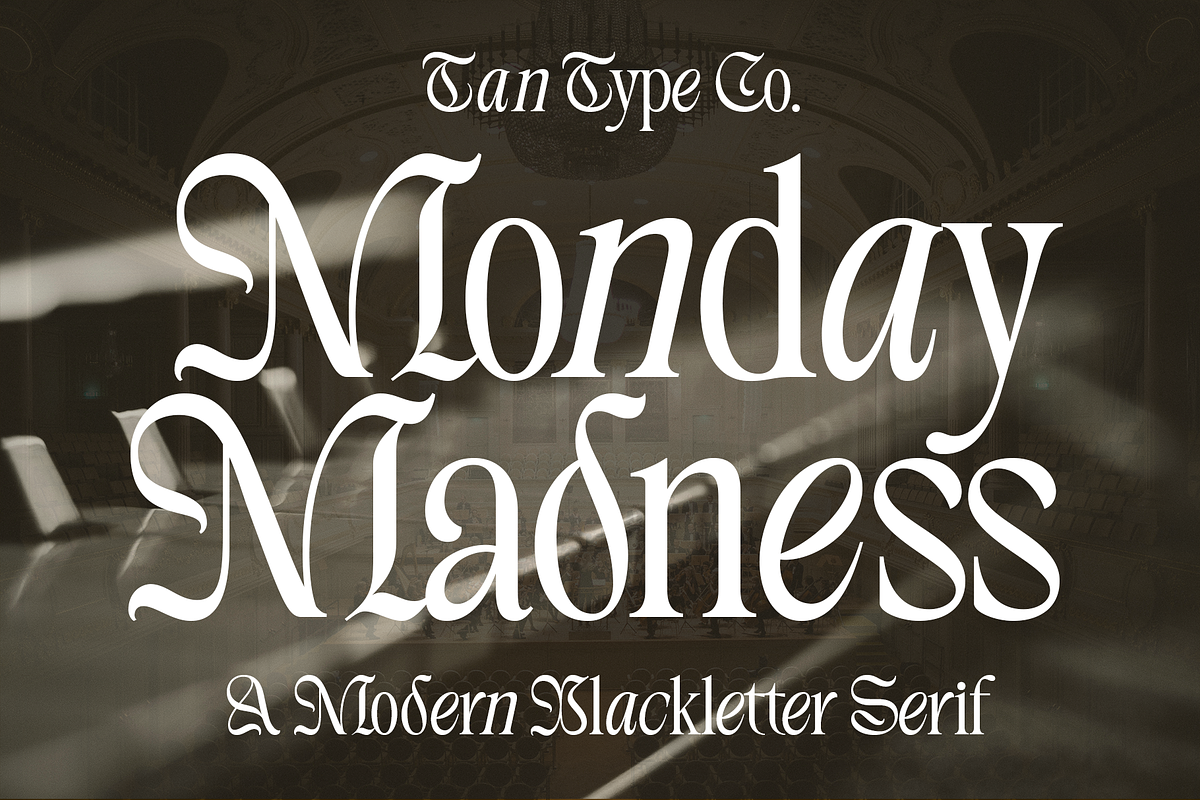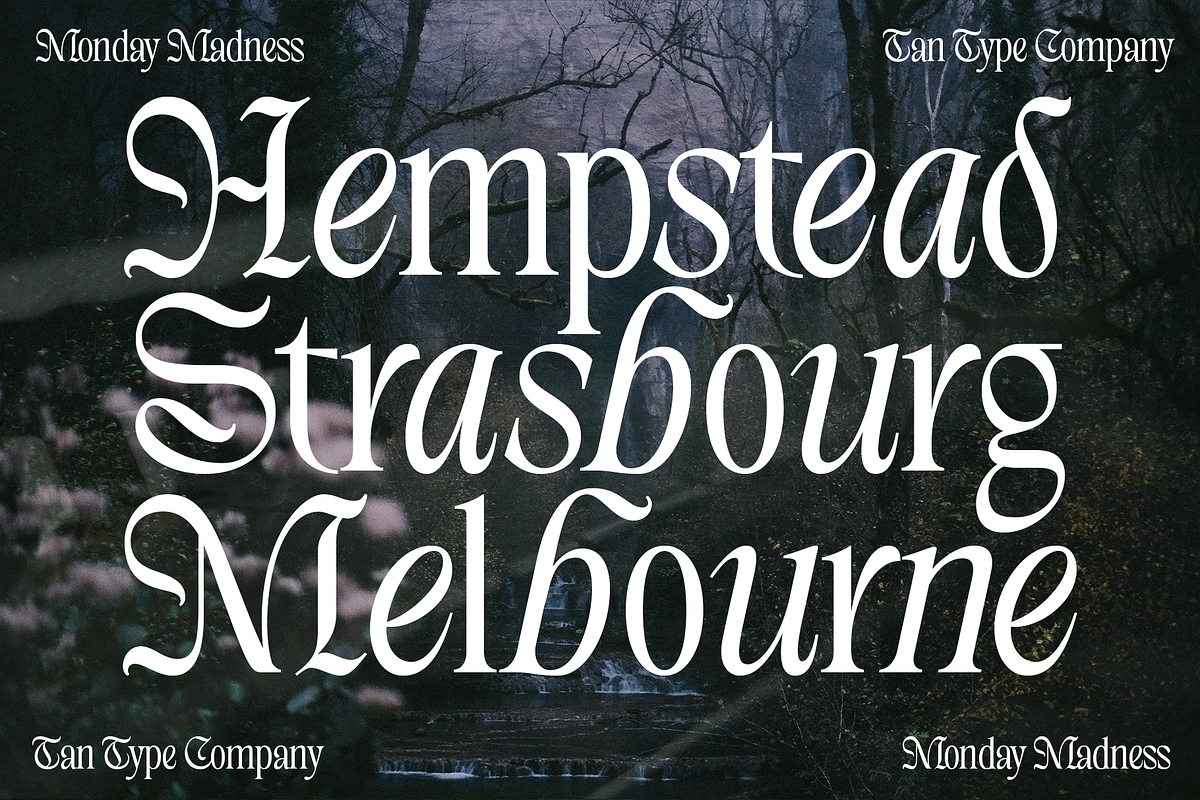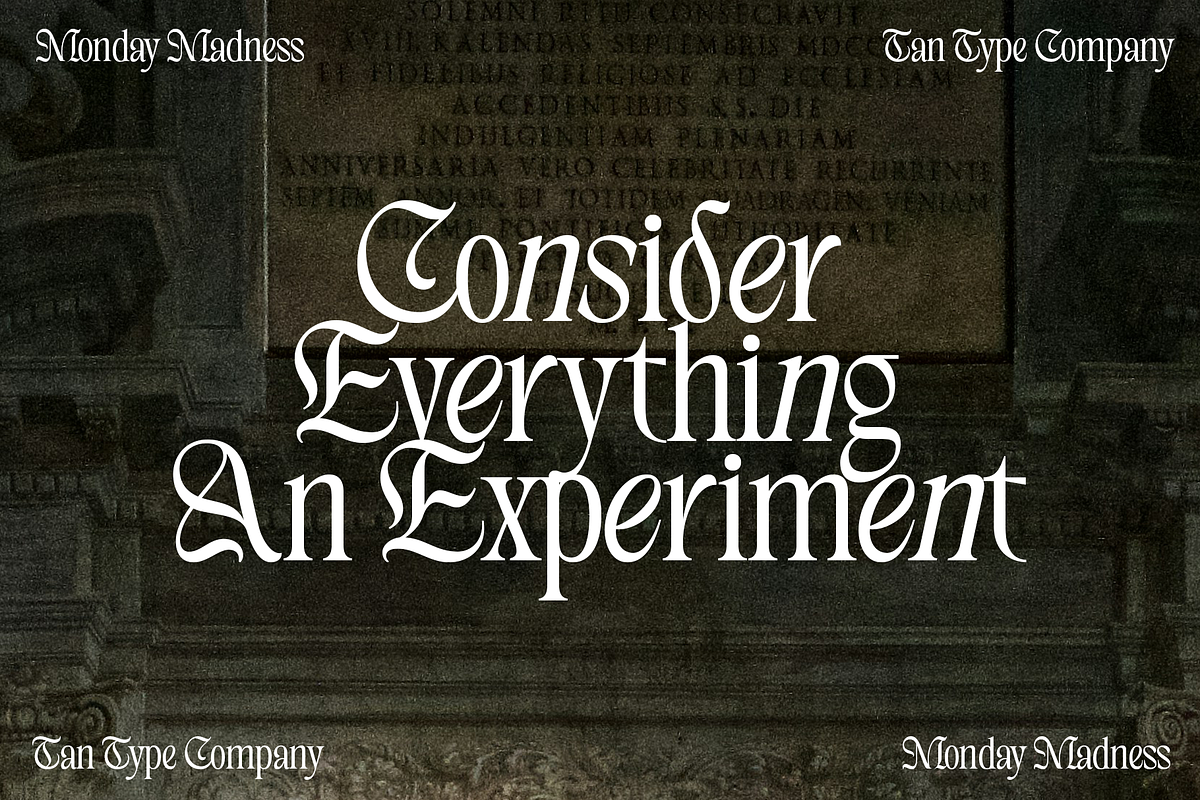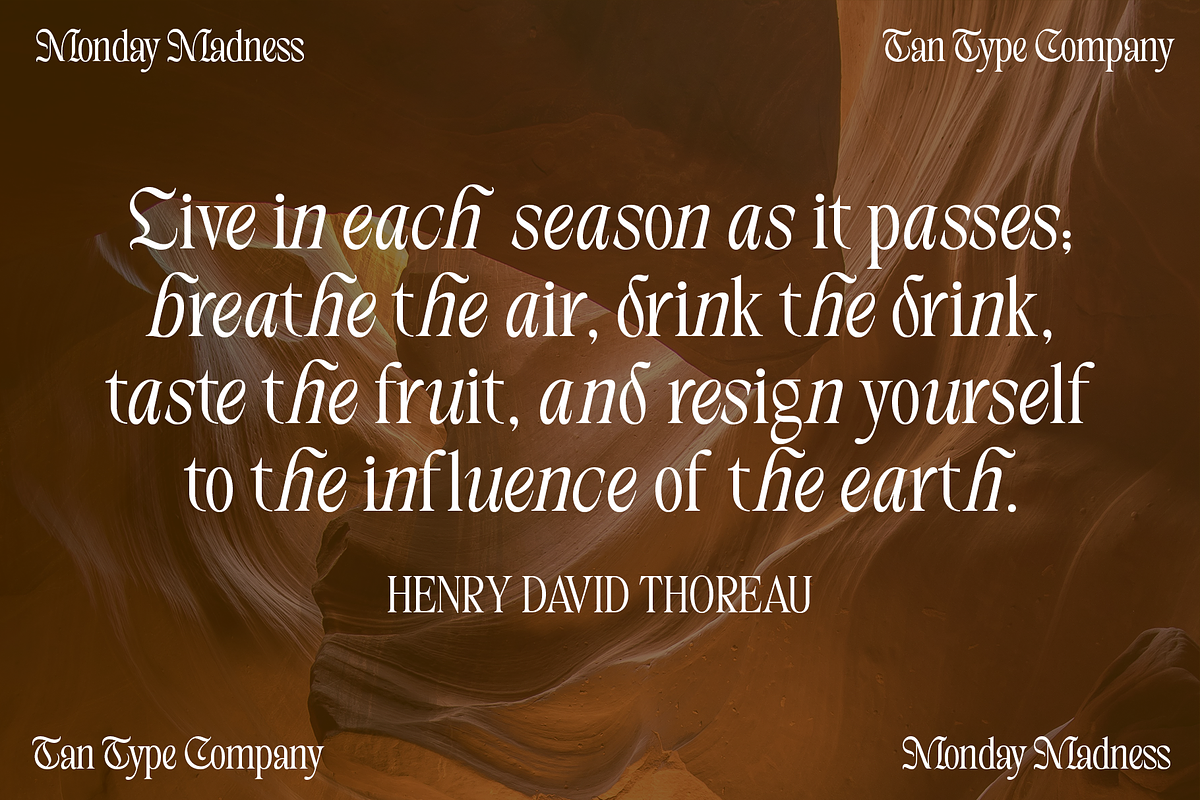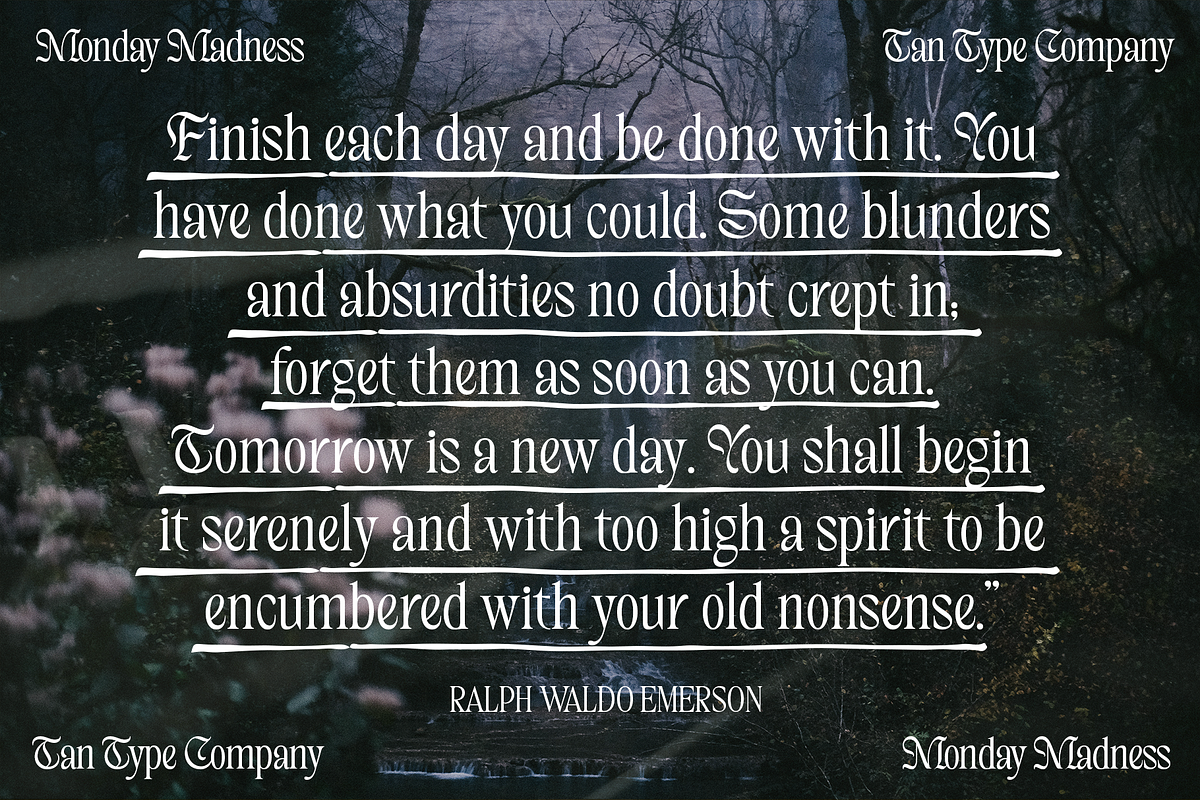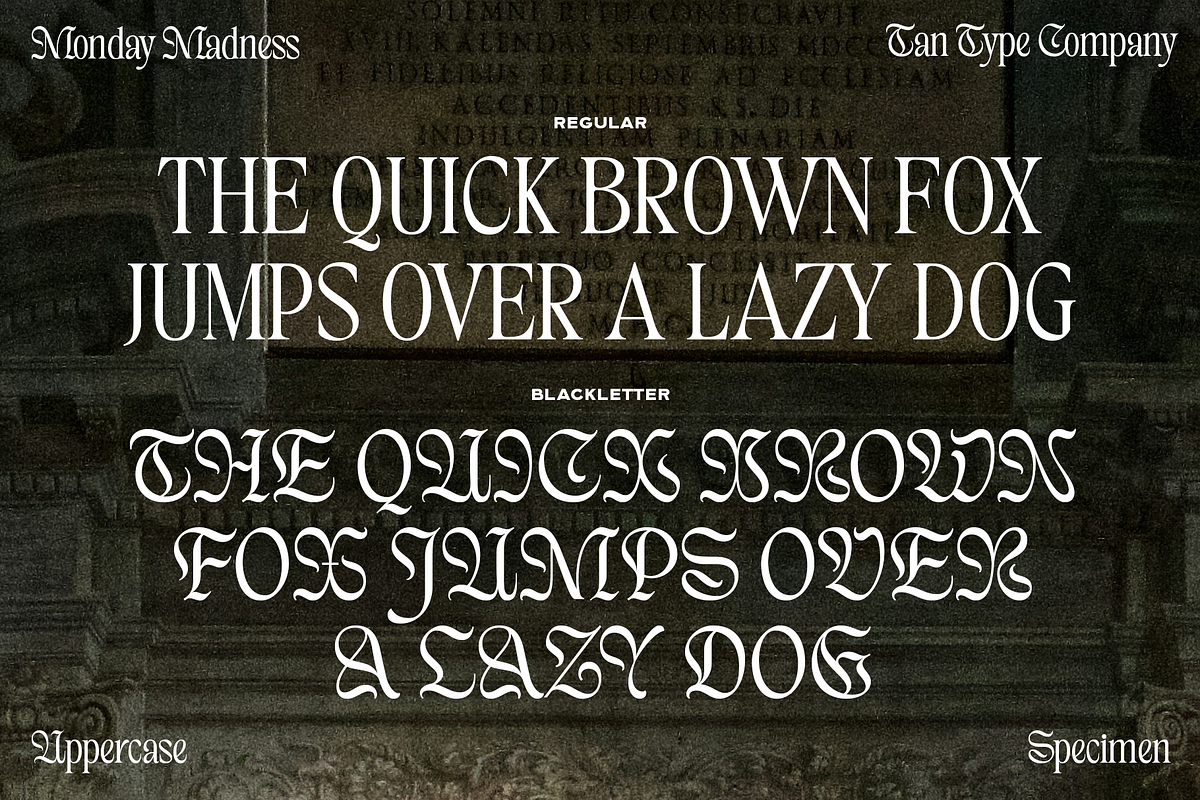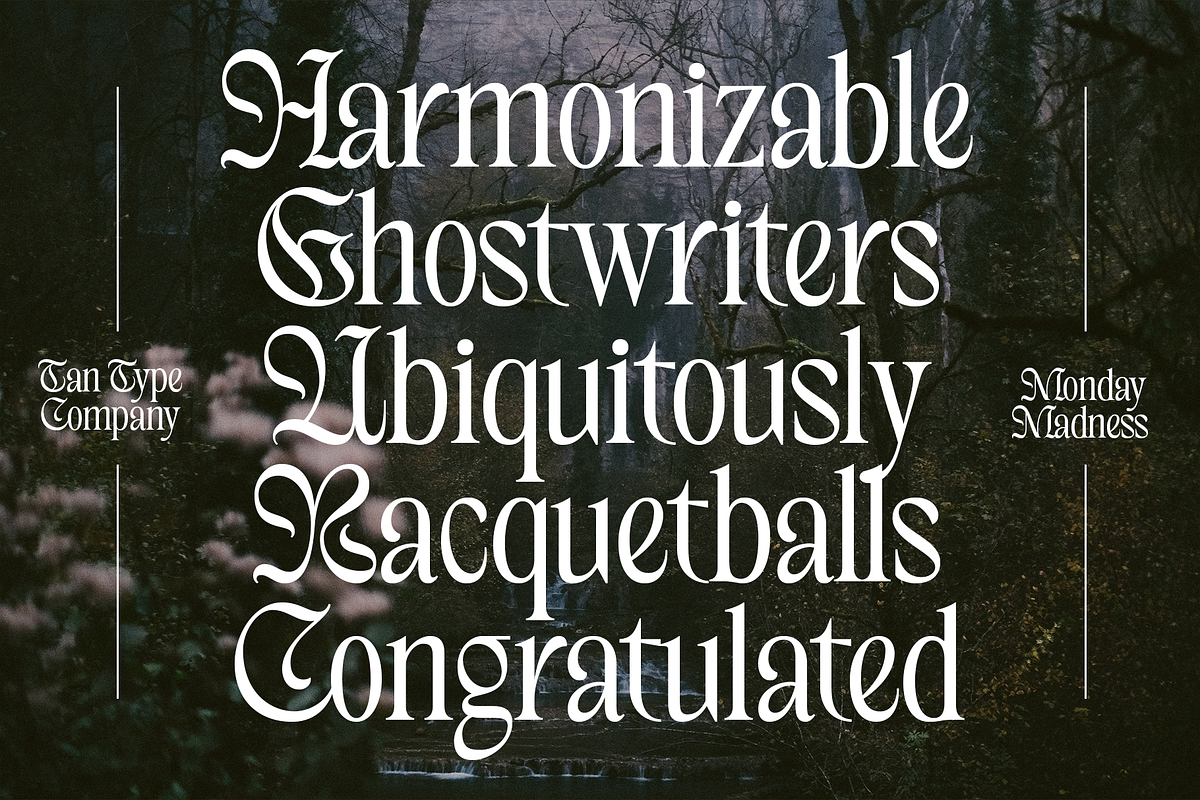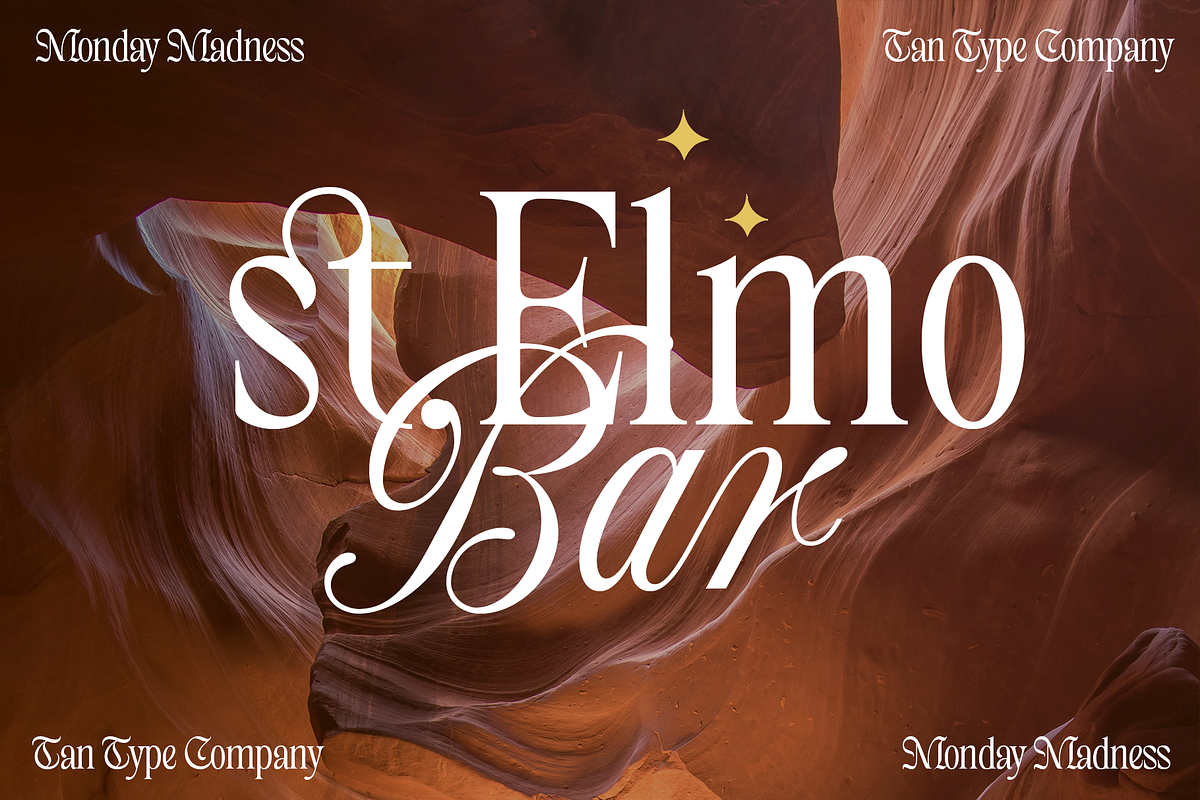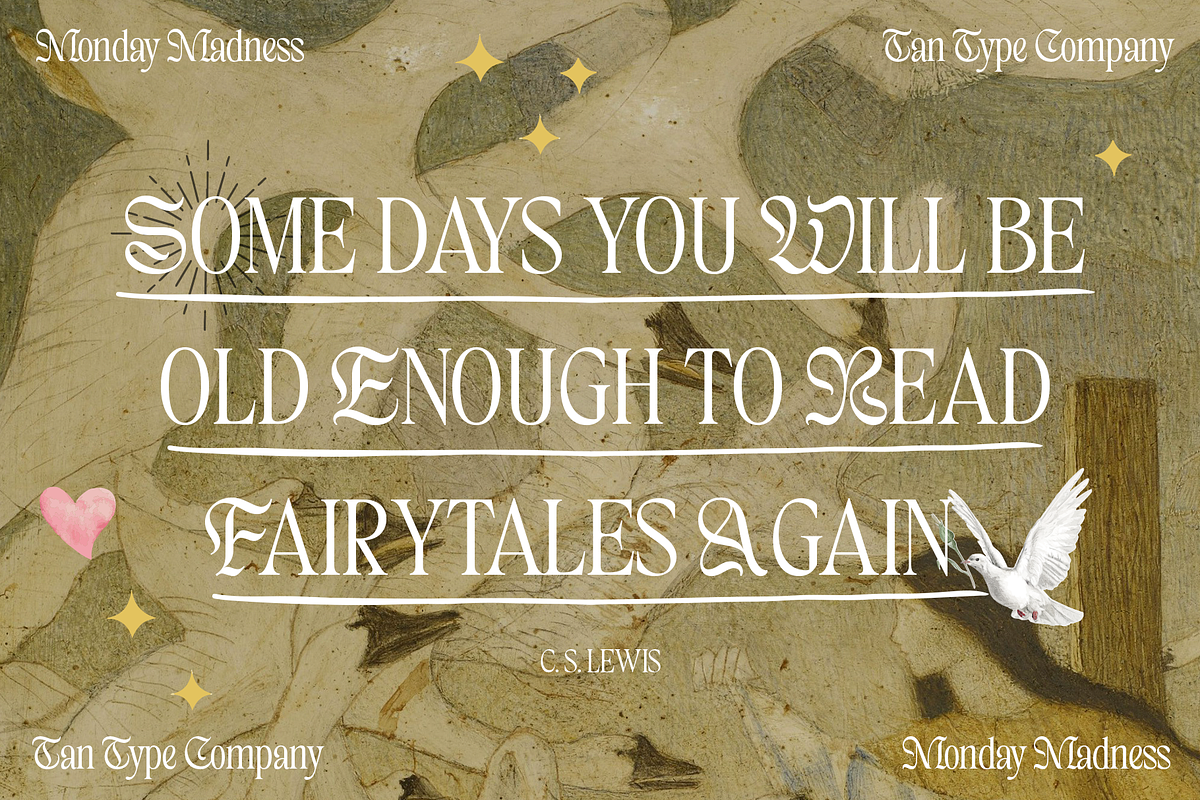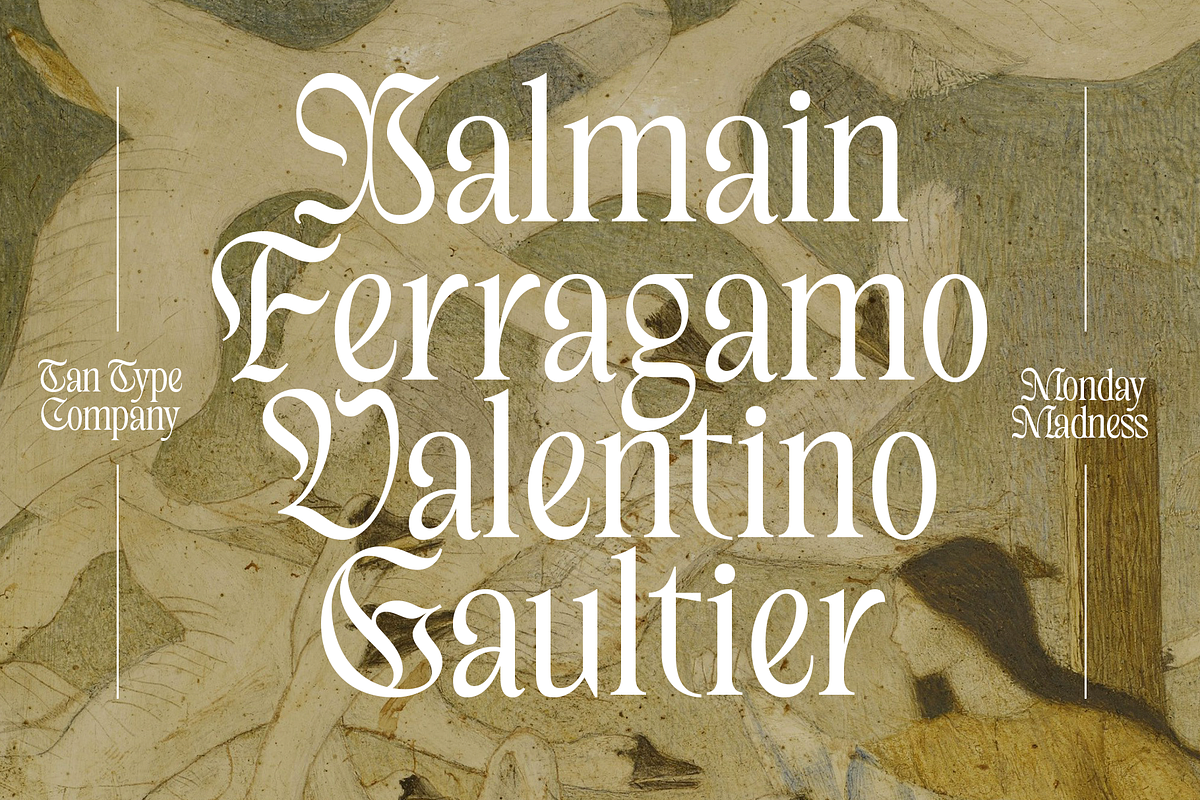
TAN - MONDAY MADNESS
Monday Madness is a captivating modern blackletter serif font that blends the timeless elegance of traditional blackletter forms with contemporary readability. While it pays homage to the bold, expressive nature of classic blackletter, its carefully crafted curves and clean lines bring a sophisticated, refined edge to the design. The font strikes the perfect balance between artistic flourish and functional clarity, making it suitable for a wide range of projects from editorial to branding.
In addition to its primary blackletter styling, Monday Madness also offers a refined regular serif option, providing versatility and flexibility for different design needs. Several alternative lowercase characters add an extra layer of personality and uniqueness, allowing for creative typographic treatments that stand out without sacrificing legibility. Whether you're creating striking headlines, vintage-inspired logos, or elegant typographic compositions, Monday Madness delivers both style and substance.